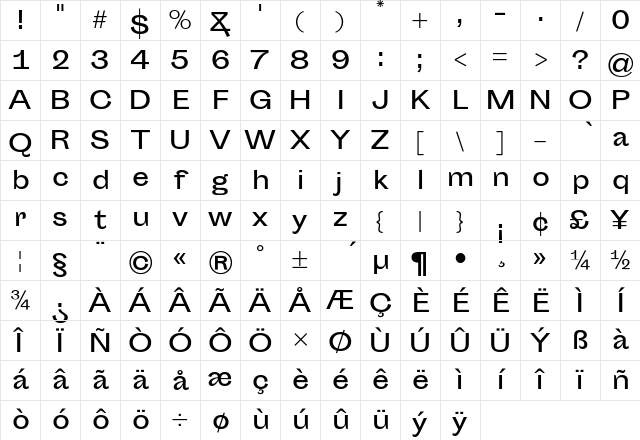
Sporting Grotesque Regular Free Font
Sporting Grotesque Regular
Foundry: Lucas LE BIHAN
Designer: Lucas LE BIHAN
Design Context for Sporting Grotesque
Sporting Grotesque brings high-energy athletic personality to the page - its confident, muscular forms are built for impact.
Pro Tip: Use Sporting Grotesque in all-caps headlines where its athletic energy can fully express itself. Pair with a solid, simple sans for supporting text.
Who designed the Sporting Grotesque Regular font?